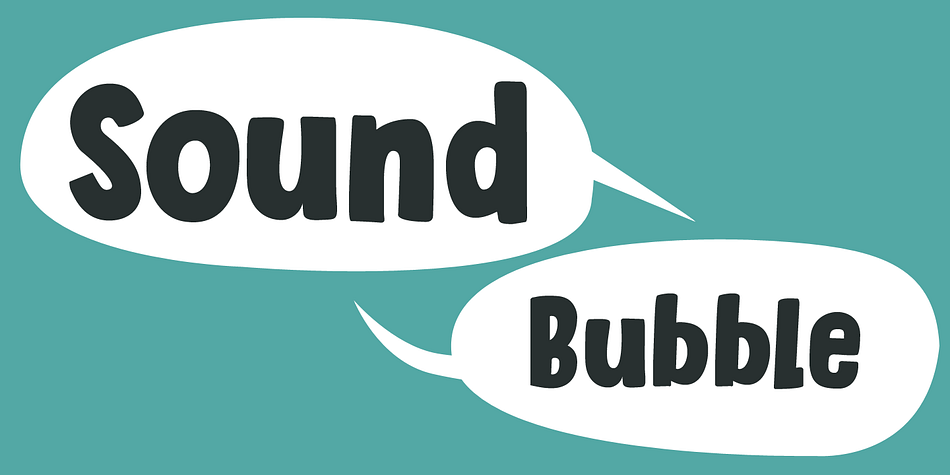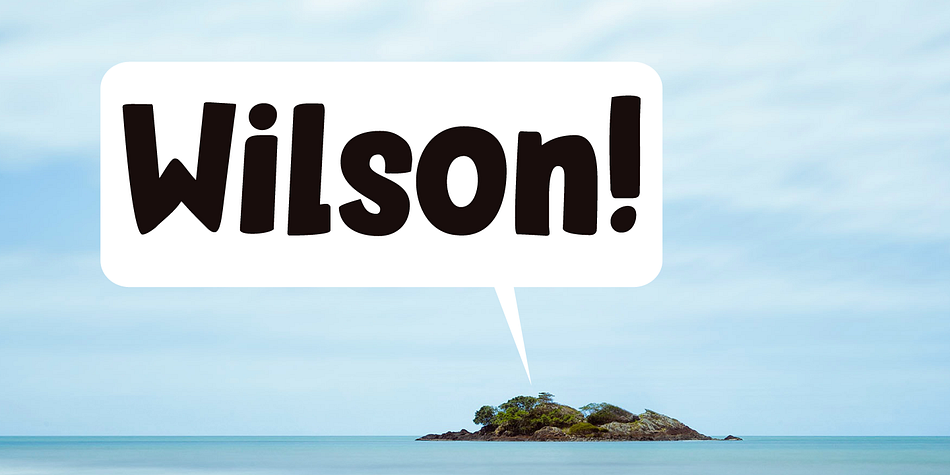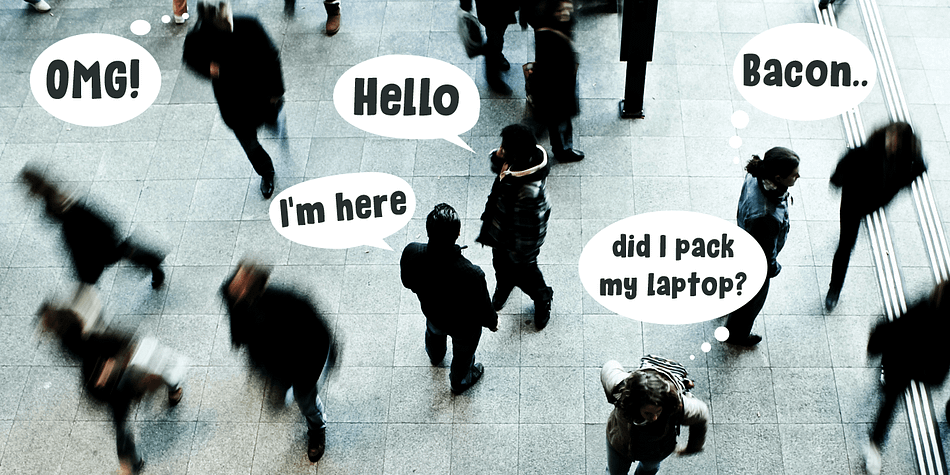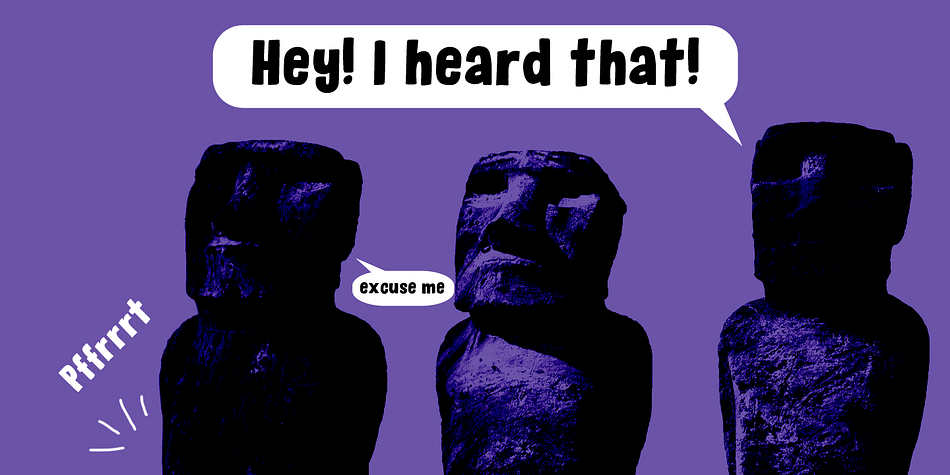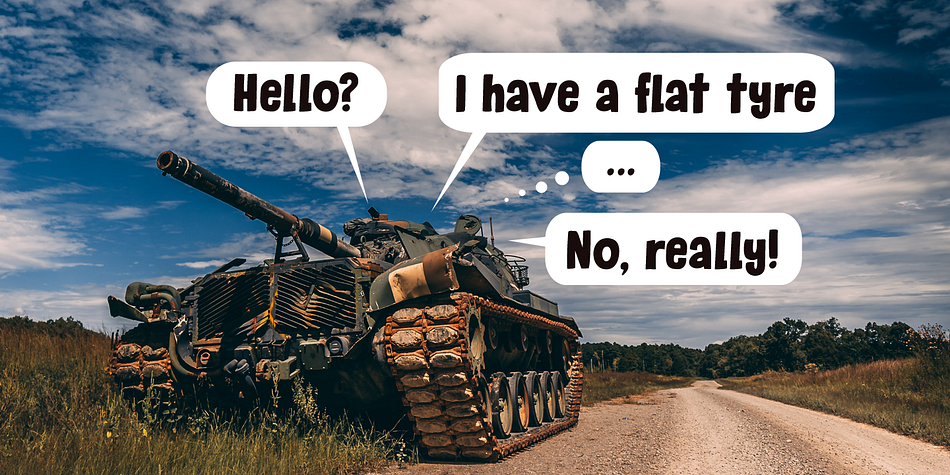
Designed by David Kerkhoff, Sound Bubble is a hand display font family. This typeface has two styles and was published by Hanoded.
Sound Bubble is a nice, uncomplicated cartoon-ish font. It will liven up your designs, especially book covers, posters and packaging. Comes in a normal and a dotty version.